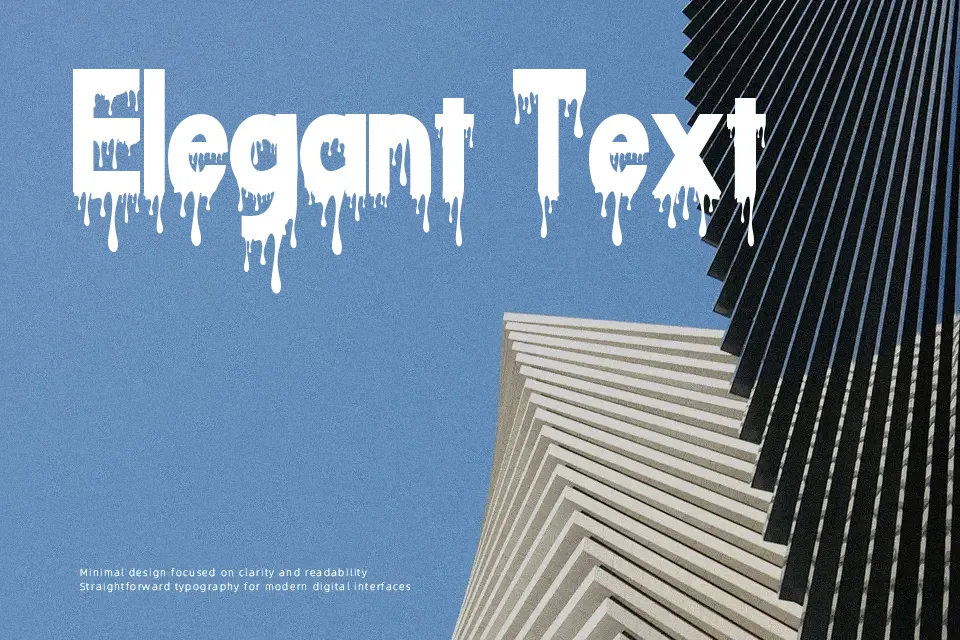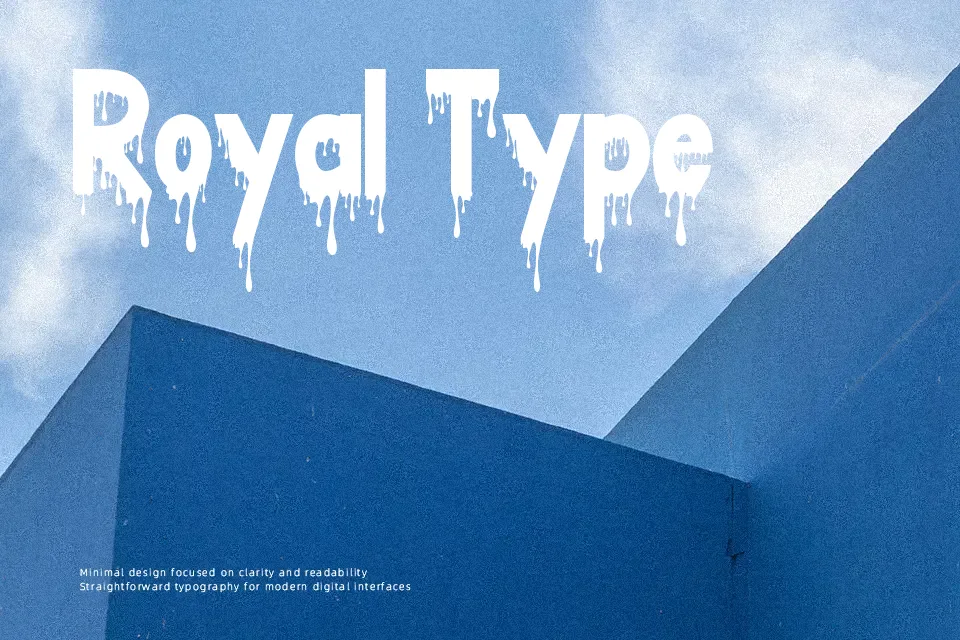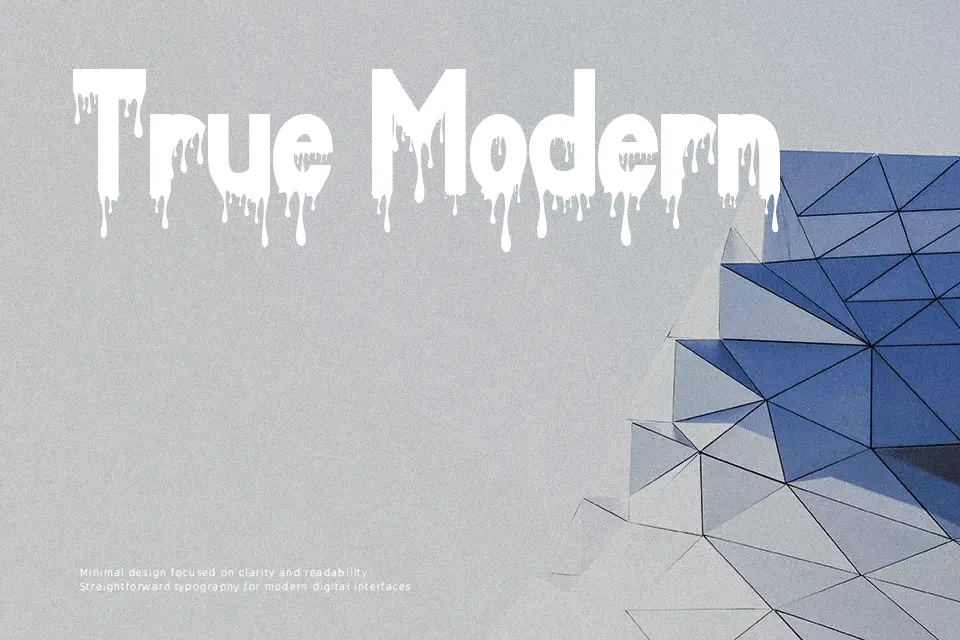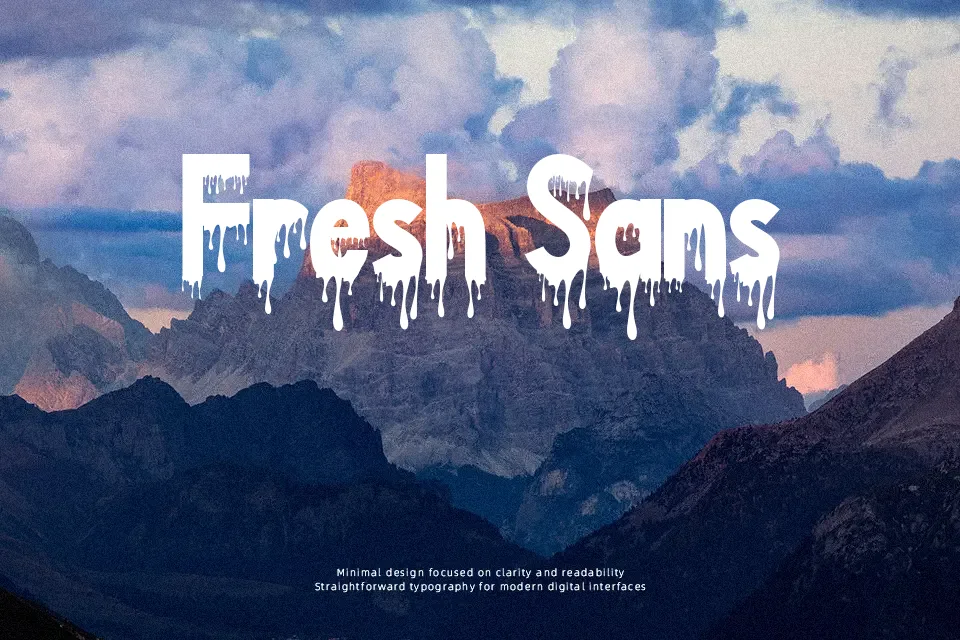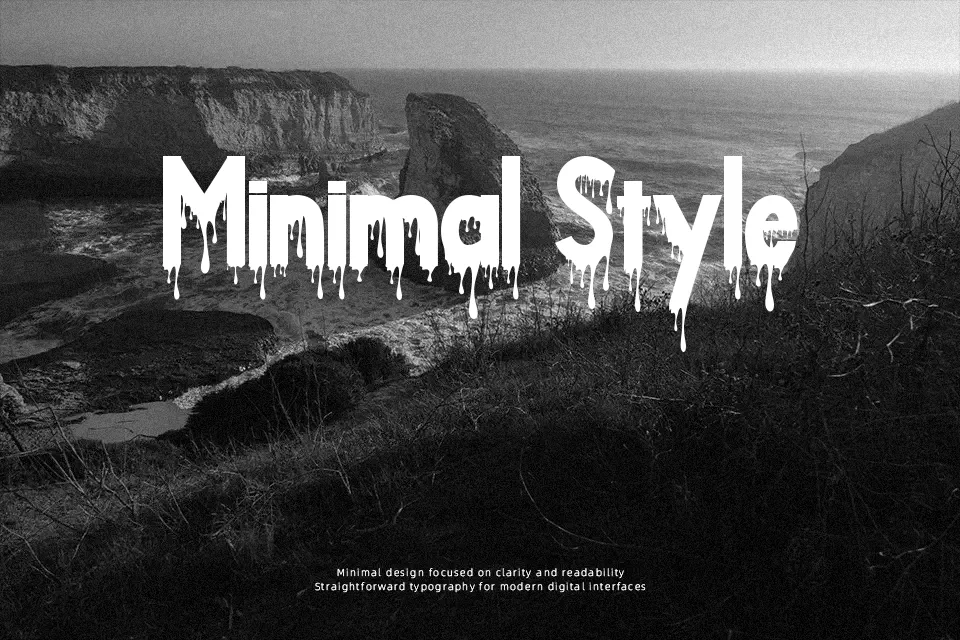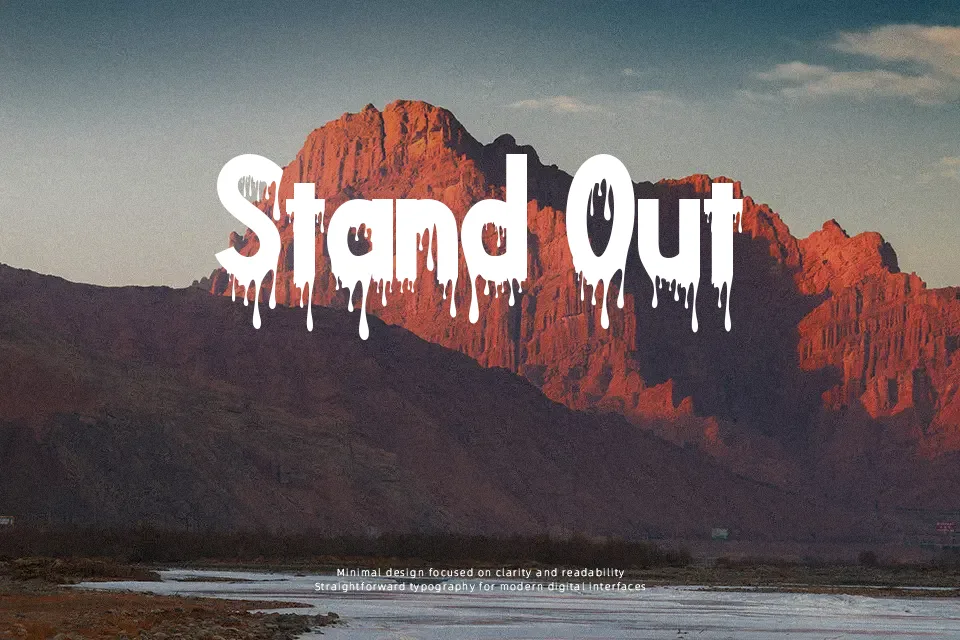
Bloody Terror Font
Bloody Terror is a striking decorative typeface defined by its heavy, jagged strokes and prominent dripping liquid effects that simulate wet blood. The structural foundation is thick and slightly distressed, giving it a raw, handmade appearance that creates a strong focal point. This font naturally establishes a terrifying, gruesome atmosphere, functioning exceptionally well on thriller book covers, haunted house promotional materials, and dark apparel designs. Because the pronounced drips require generous vertical clearance, it struggles in dense body copy or small-scale digital environments where the intricate details turn into a messy blur. Compared to typical distressed typography, this design relies on literal illustrative elements rather than mere texture, providing a much more visceral and cinematic visual experience.
– Halloween event posters and promotional banners
– Thriller and horror book cover titles
– Gruesome apparel and merchandise graphics
– Scary movie title sequences
– Small UI design elements or app interfaces
– Lengthy paragraphs and body copy
– Minimalist corporate branding
Perfect for film, halloween, and headline, with a dark and decorative style.